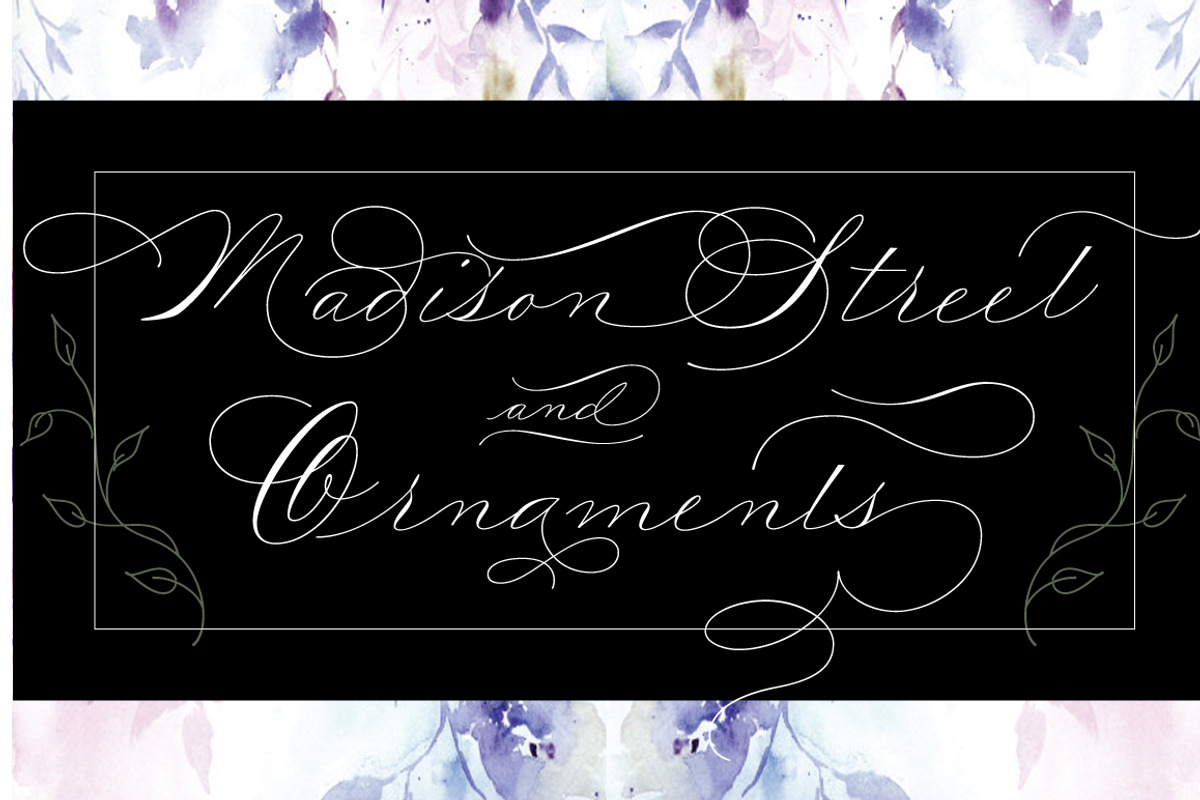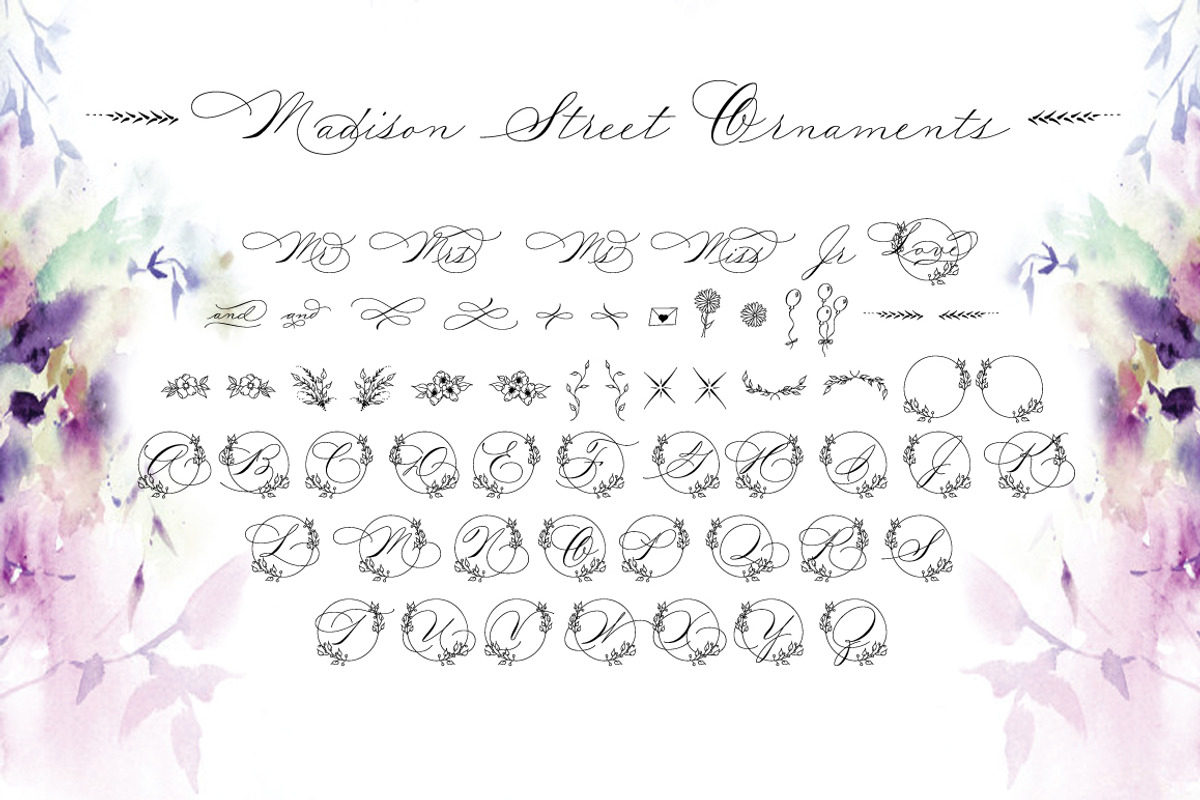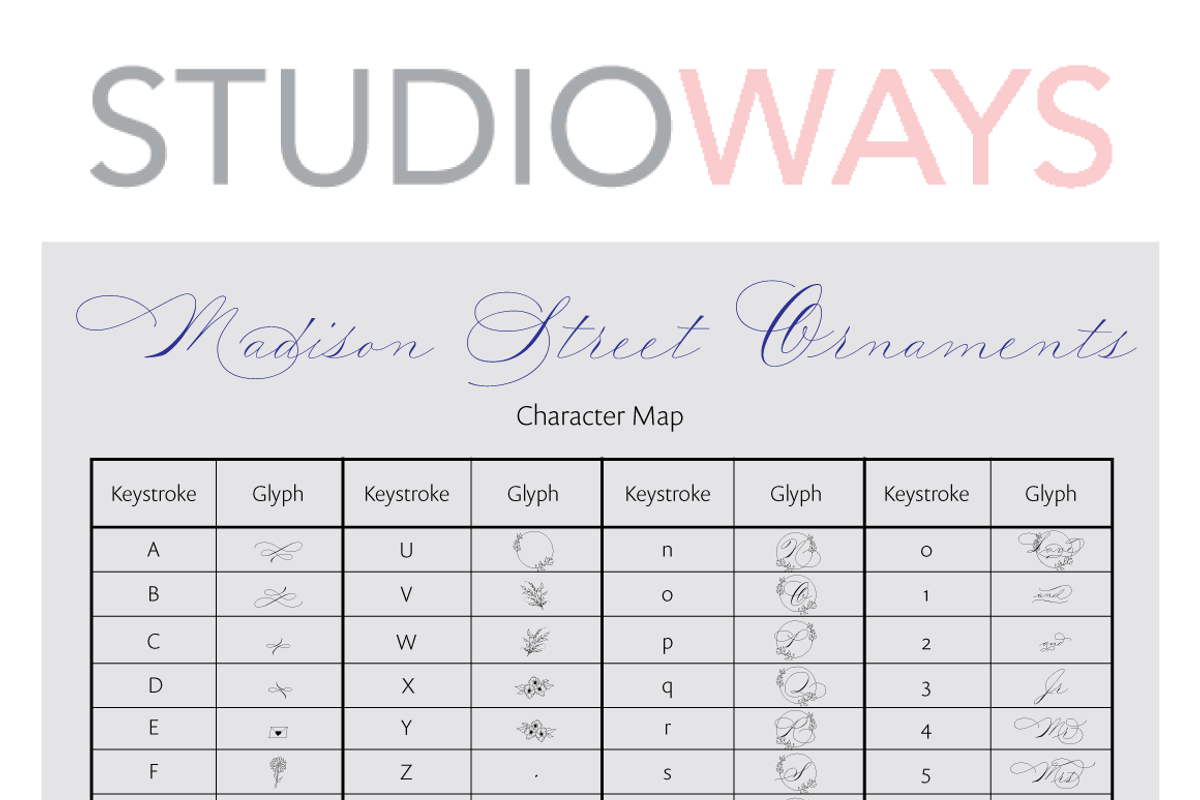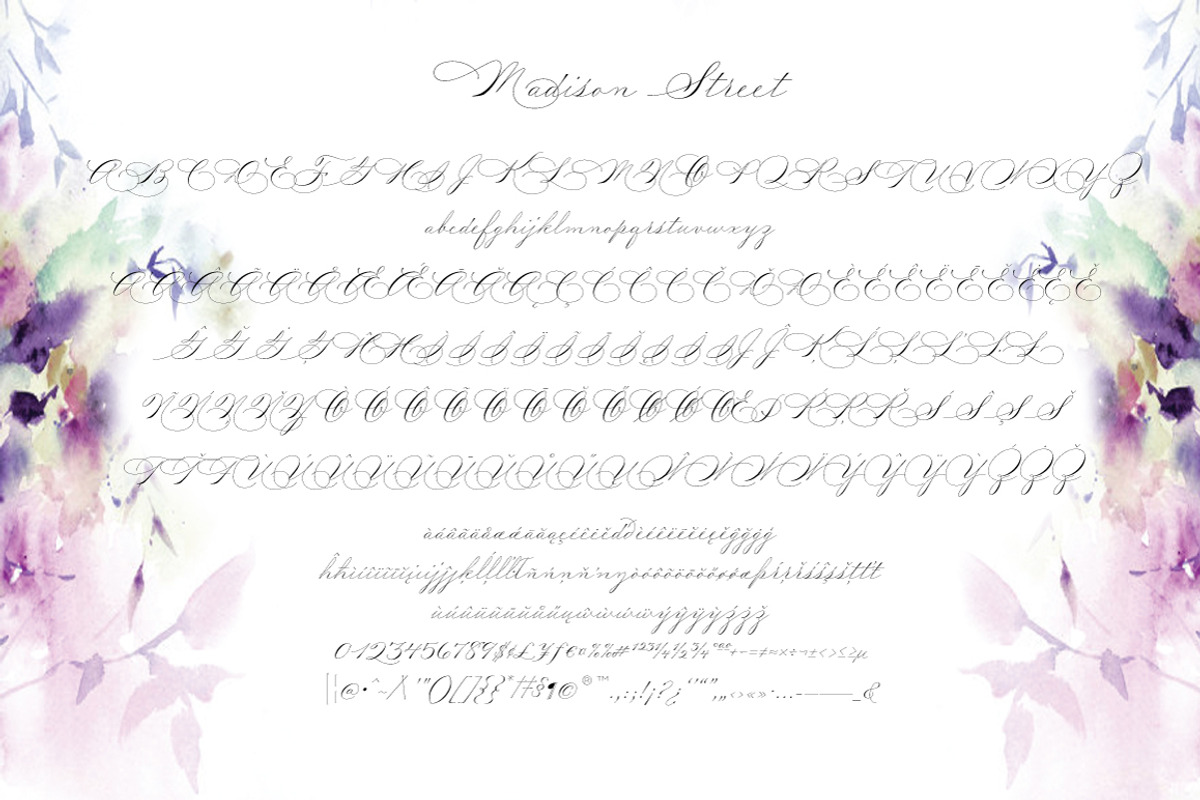
Madison Street Pro + Ornaments
We've combined the beautiful Madison Street Pro font with the Madison Street Ornaments so you can save a little money!
Madison Street Pro is a gorgeous Spencerian style pen script, based on the calligraphy of Elaina DeBoard. It is full of OpenType goodies that can automatically recreate beautiful hand written calligraphy, just pick any combination of OT features (Ligature, Swash, Stylistic Alts, Discretionary Ligatures). Paired with the Ornaments font, with its array of fleurons and monograms, you are free to explore that refined penmanship style. Use it for invitations, place cards, note cards, announcements, and many other occasions that require a delicate touch!
The font package comes with an Ornaments Character Map, so can easily find the ornaments on your keyboard.